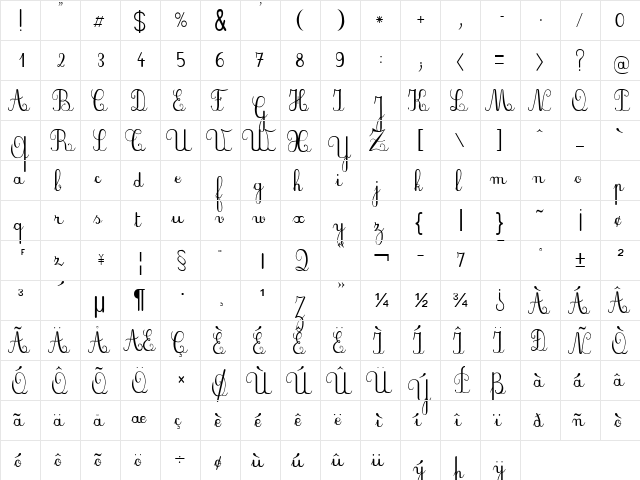
PlumScript Regular Font Preview
PlumScript Regular
PlumScript Regular Font Details
Design Context for PlumScript Typeface
PlumScript flows with the natural rhythm of handwritten lettering, making it ideal for designs that call for warmth and personal expression.